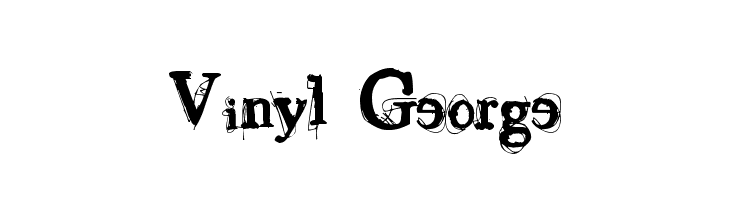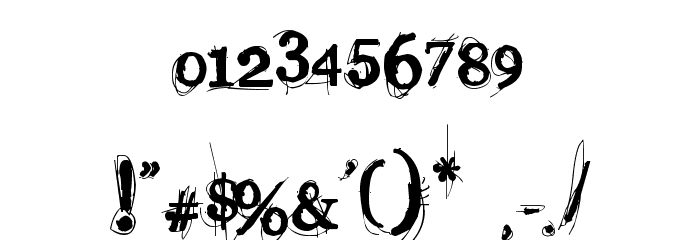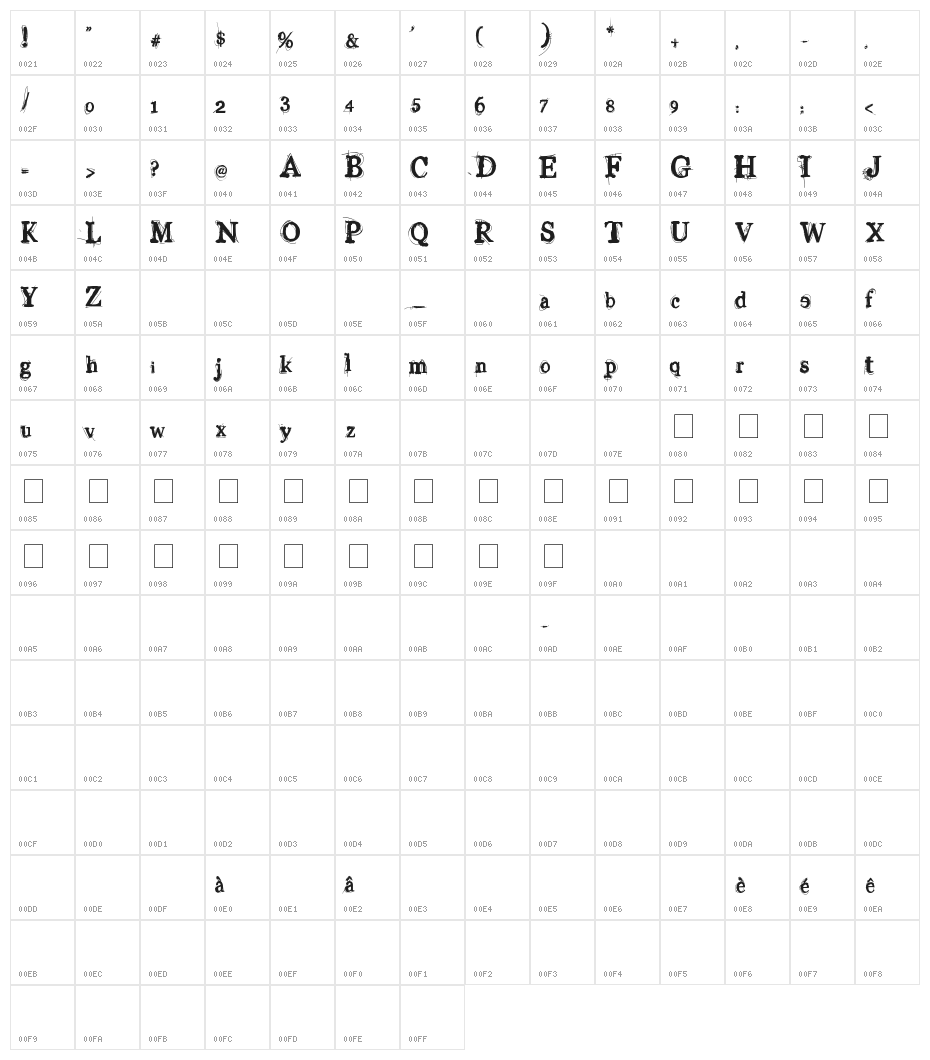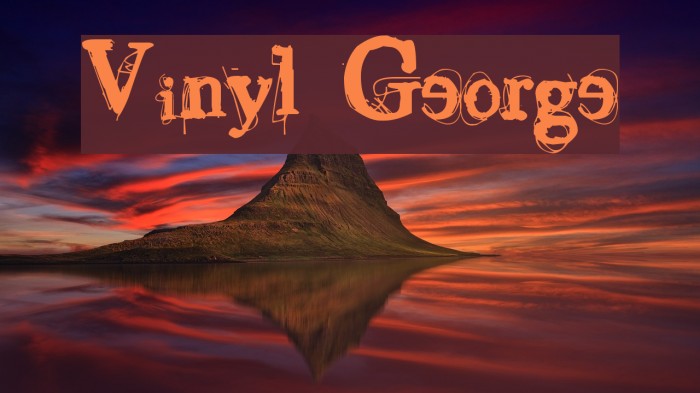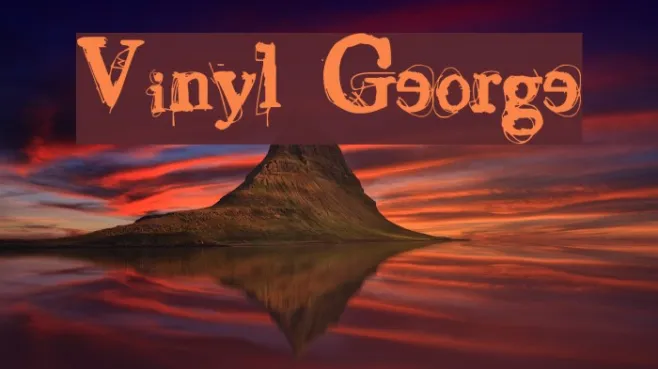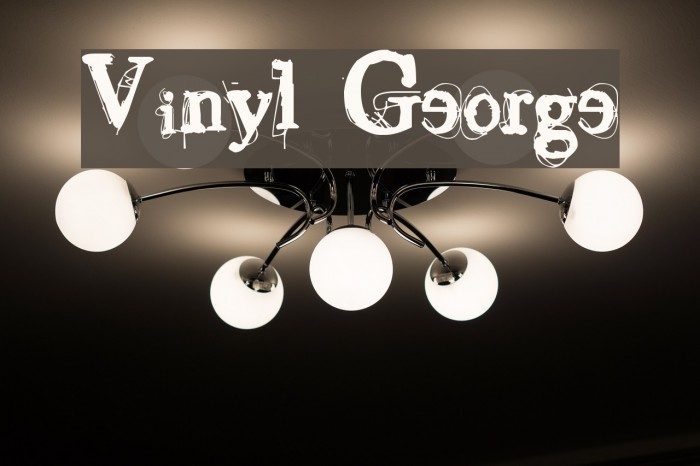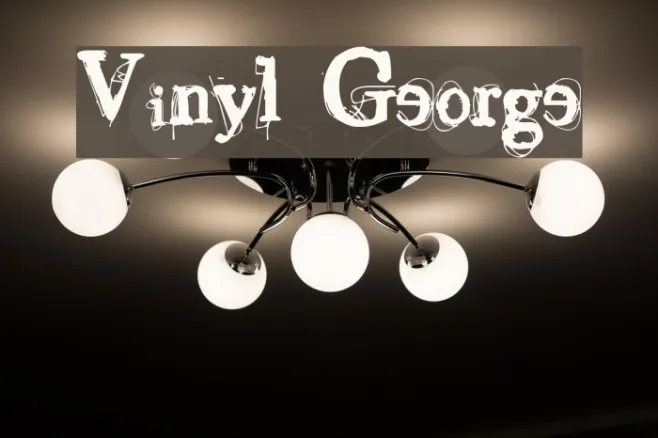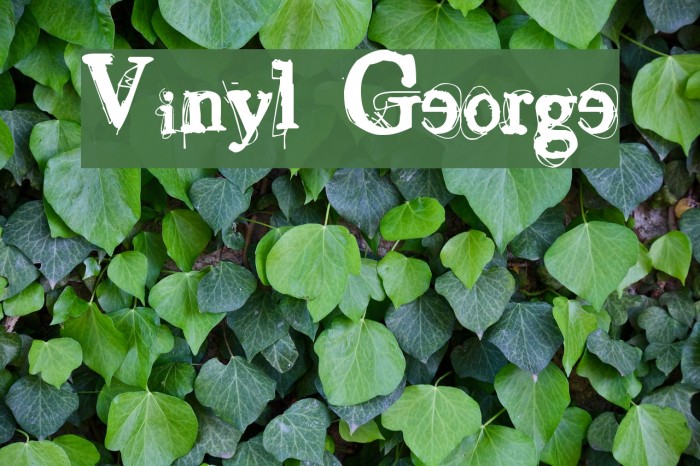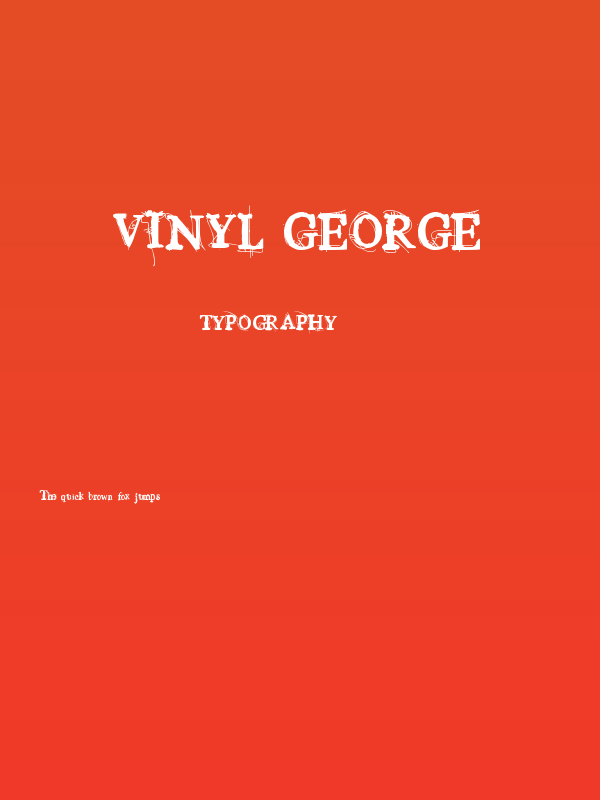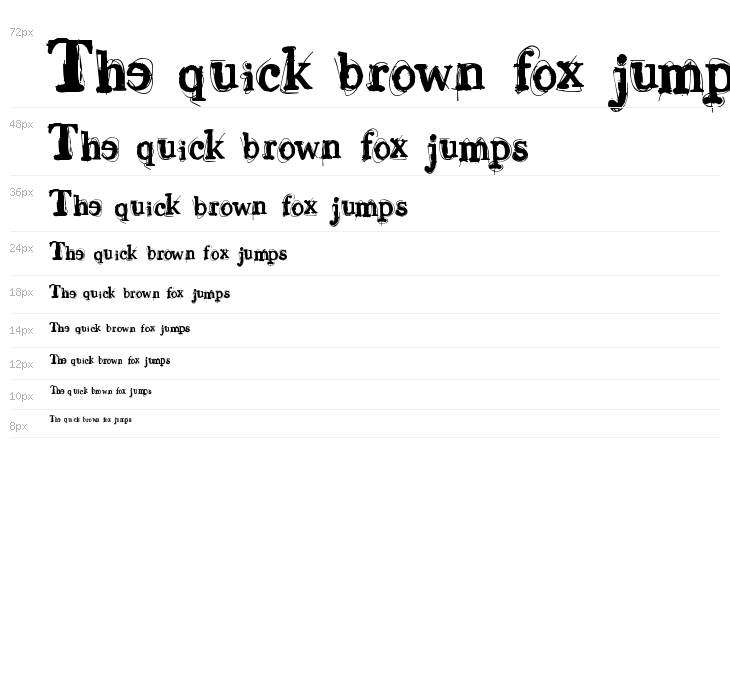
Vinyl George Font
Vinyl George Description
This font features a bold, decorative style with a distressed, grunge-like appearance. The characters are embellished with rough, uneven edges and irregular strokes, giving them a dynamic and edgy look. The uppercase and lowercase letters maintain a consistent style, with a slightly condensed form that adds to the font's unique character. Numbers and special characters follow the same design principles, ensuring a cohesive appearance across all glyphs. This font's distinctive style makes it ideal for projects that require a bold, eye-catching aesthetic.
| Proposed Projects | Ideal for album covers, posters, and branding that require a bold, edgy aesthetic. |